Web Accessibility: Easy Fonts & Assistive Technology Examples
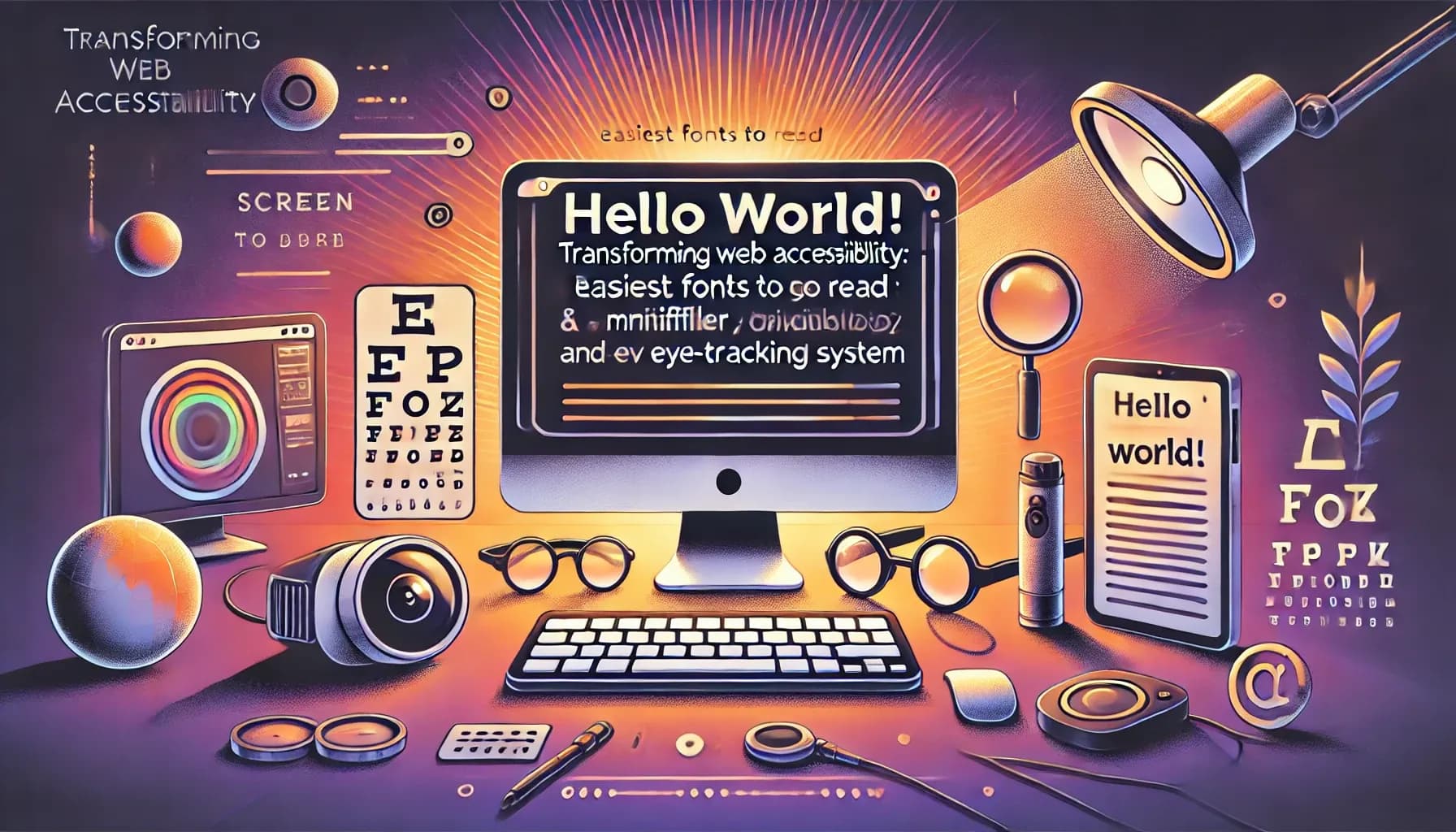
In today’s world, where so much of our lives happen online, it’s more important than ever to make sure the web works for everyone. At WebAbility.io, we’re passionate about creating a digital space that’s welcoming and easy to use for all people, regardless of their abilities. That’s why we’re diving into two essential aspects of web accessibility: choosing fonts that are easy to read and using assistive technologies to make websites truly inclusive. Why Accessibility Should Matter to Everyone Imagine trying to read a website where the text is so small or cluttered that it feels like a puzzle. Or navigating a site without being able to see the screen. For over a billion people worldwide living with disabilities, that’s a daily reality. Accessibility isn’t just about meeting legal standards like the Web Content Accessibility Guidelines (WCAG); it’s about making the internet a place where everyone feels included and respected. How Fonts Make a Difference Fonts are more than just a design choice—they’re a bridge between your message and your audience. The right font makes your content readable and enjoyable, while the wrong one can leave users frustrated or excluded. What Makes a Font Easy to Read? Keep it Simple with Sans-Serif Fonts: These fonts don’t have the extra decorative strokes, making them easier to read on screens. Popular options include: Arial Verdana Roboto Good Spacing is Key: Fonts with clear spacing between letters and words reduce eye strain and are especially helpful for people with dyslexia or cognitive challenges. Steer Clear of Italics: Italicized text can be tough to read, especially for people with visual impairments or learning disabilities. Size Matters: Keep your body text at least 16px so it’s not a struggle to read, especially on mobile devices. Fonts We Love for Accessibility OpenDyslexic: This font is specifically designed to help people with dyslexia. Its heavier bottom strokes give letters a stable, grounded feel. Helvetica: A clean and classic option that works well across devices. Georgia: A serif font that’s still highly readable, especially for headings. Quick Tips to Make Fonts Shine on Your Website Use strong contrast between your text and background colors. (The WCAG suggests a ratio of 4.5:1.) Stick with no more than two font styles to keep things clean and consistent. Test your site with tools like Lighthouse to ensure it’s accessible for everyone. Assistive Technology: Opening Doors Online Readable fonts are a great start, but they’re only part of the puzzle. Assistive technologies go further, empowering people with disabilities to interact with websites in ways that suit their needs. Real-World Examples of Assistive Technology Screen Readers: Tools like JAWS and NVDA read text aloud, making websites accessible for people with visual impairments. To make your site work well with these tools: Add descriptive alt text to images. Use proper HTML tags to structure your content. Screen Magnifiers: Programs like ZoomText enlarge text and images, helping users with low vision focus on the details. For compatibility: Design your site with flexible layouts. Avoid using fixed pixel dimensions. Voice Control Software: Tools like Dragon NaturallySpeaking let users navigate and type using their voice. You can make your site easier to use with voice commands by: Clearly labeling form fields. Simplifying navigation menus. Keyboard Navigation: Many users rely on keyboards instead of mice to move through a site. To support them: Make sure your site has logical tab navigation. Highlight elements like links or buttons when they’re selected. AI Assistants and Tools: Apps like Be My Eyes connect visually impaired users with sighted volunteers for real-time help. It’s an inspiring example of how technology can foster connection and independence.
Frequently Asked Questions (FAQ)
1. What is web accessibility, and why is it important?
Web accessibility ensures that websites are usable by everyone, including people with disabilities. It’s important because over a billion people worldwide live with disabilities, and accessibility promotes inclusion, equal opportunities, and compliance with legal standards like the WCAG (Web Content Accessibility Guidelines).
2. What are the easiest fonts to read for accessibility?
Some of the most accessible fonts include:
These fonts avoid decorative elements and emphasize clarity and spacing.
3. How do I ensure my fonts are accessible on my website?
To make your fonts accessible:
4. What is assistive technology, and how does it help users with disabilities?
Assistive technology refers to tools that help individuals with disabilities access and navigate digital content. Examples include:
5. How can I make my website compatible with screen readers?
To ensure compatibility:
6. What is the WCAG, and how does it relate to accessibility?
The Web Content Accessibility Guidelines (WCAG) provide a global standard for making web content accessible. They outline principles like:
7. Can accessibility improvements benefit users without disabilities?
Absolutely! Accessibility features like readable fonts, clear navigation, and well-organized content improve the overall user experience for everyone, including people without disabilities. For example, good font choices and high contrast make text easier to read for users on mobile devices or in poor lighting conditions.
9. Is accessibility a one-time project, or does it require ongoing effort?
Web accessibility is an ongoing process. As technology evolves and your content changes, regular audits and updates are essential to maintaining compliance and usability.
10. How do I get started with accessibility for my website?
Start by conducting an accessibility audit to identify areas for improvement. Focus on readable fonts, proper HTML structure, and assistive technology integration. You can also reach out to WebAbility.io for expert guidance and tailored solutions.